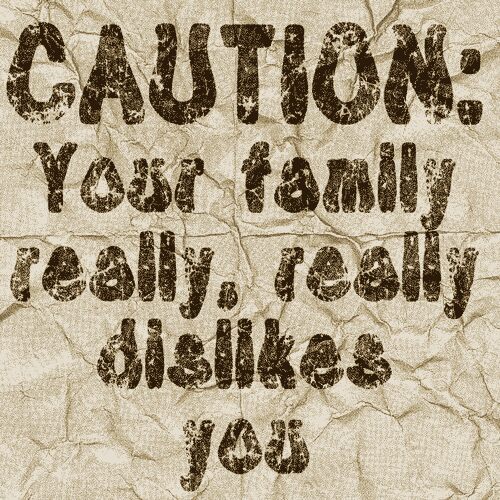
Tioem-Black-Distressed
Tioem-Black-Distressed, designed by Tom Ledin, stands out as a bold display font that commands attention. Its semi-condensed width is balanced by the substantial weight of its characters, making it an assertive choice for impactful messaging. The distressed and distorted style of this font adds a touch of raw energy and edginess to any design.
Exuding an aesthetic that is both rugged and refined, Tioem-Black-Distressed is perfect for projects that require a font with character and depth. Be it for music albums, urban branding, or gritty advertising campaigns, this typeface delivers a visually gripping experience that can elevate your creative work with its unique texture.
Its robust silhouette combined with the weathered details gives Tioem-Black-Distressed versatility in contexts where a strong visual statement is desired. Whether you're looking to inject personality into your designs or evoke nostalgia with a modern twist, this font provides the stylistic flair to make your project resonate with viewers.
Exuding an aesthetic that is both rugged and refined, Tioem-Black-Distressed is perfect for projects that require a font with character and depth. Be it for music albums, urban branding, or gritty advertising campaigns, this typeface delivers a visually gripping experience that can elevate your creative work with its unique texture.
Its robust silhouette combined with the weathered details gives Tioem-Black-Distressed versatility in contexts where a strong visual statement is desired. Whether you're looking to inject personality into your designs or evoke nostalgia with a modern twist, this font provides the stylistic flair to make your project resonate with viewers.